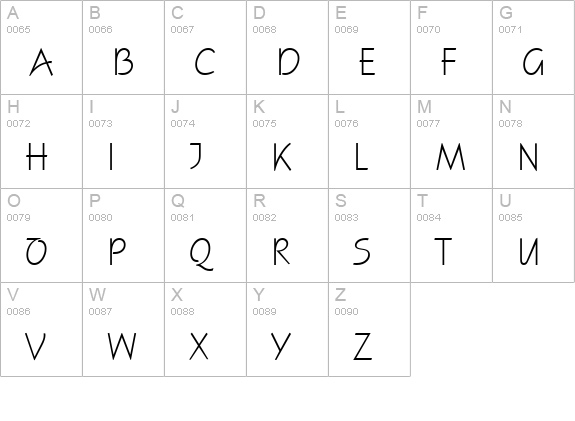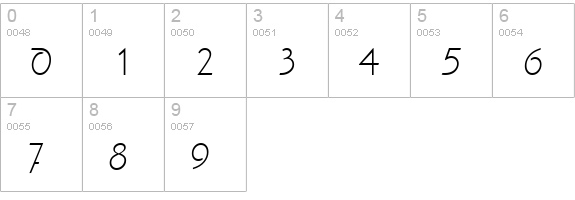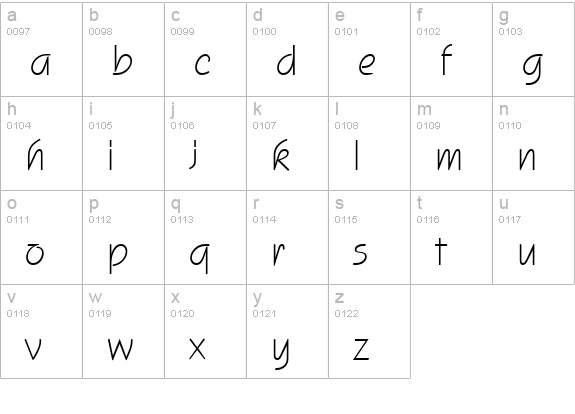
FFX Casual font is a charming and versatile typeface that exudes a casual and friendly vibe. Its rounded edges and smooth curves give it a playful and approachable look, making it perfect for a wide range of design projects. Whether you're creating invitations, posters, social media graphics, or anything in between, FFX Casual font will add a touch of whimsy to your designs. Best of all, FFX Casual font is available for free download at FontsMarket.com. So, you can easily add this delightful font to your collection without breaking the bank. Don't miss out on the opportunity to enhance your designs with the cheerful and inviting FFX Casual font today!